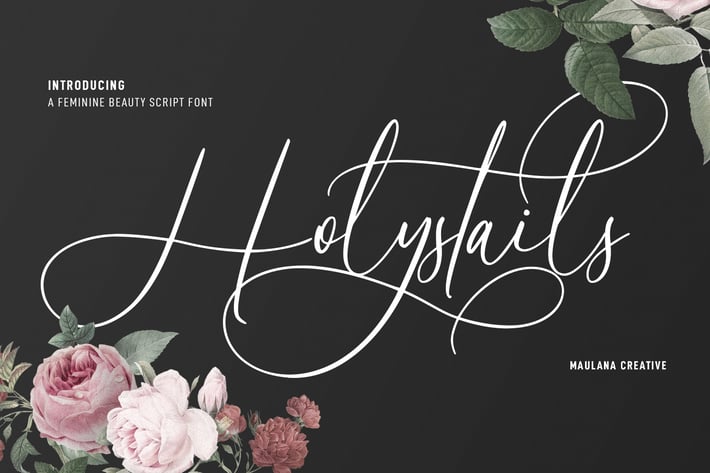
Holystails Beauty Script Font
Holystails is a beauty feminine script font. With slanted contrast stroke, fun character with a bit of ligatures and alternates. To give you an extra creative work. Holystails font support multilingual more than 100+ language. This font is good for logo design, Social media, Movie Titles, Books Titles, a short text even a long text letter and good for your secondary text font with sans or serif. Make a stunning work with Holystails font.